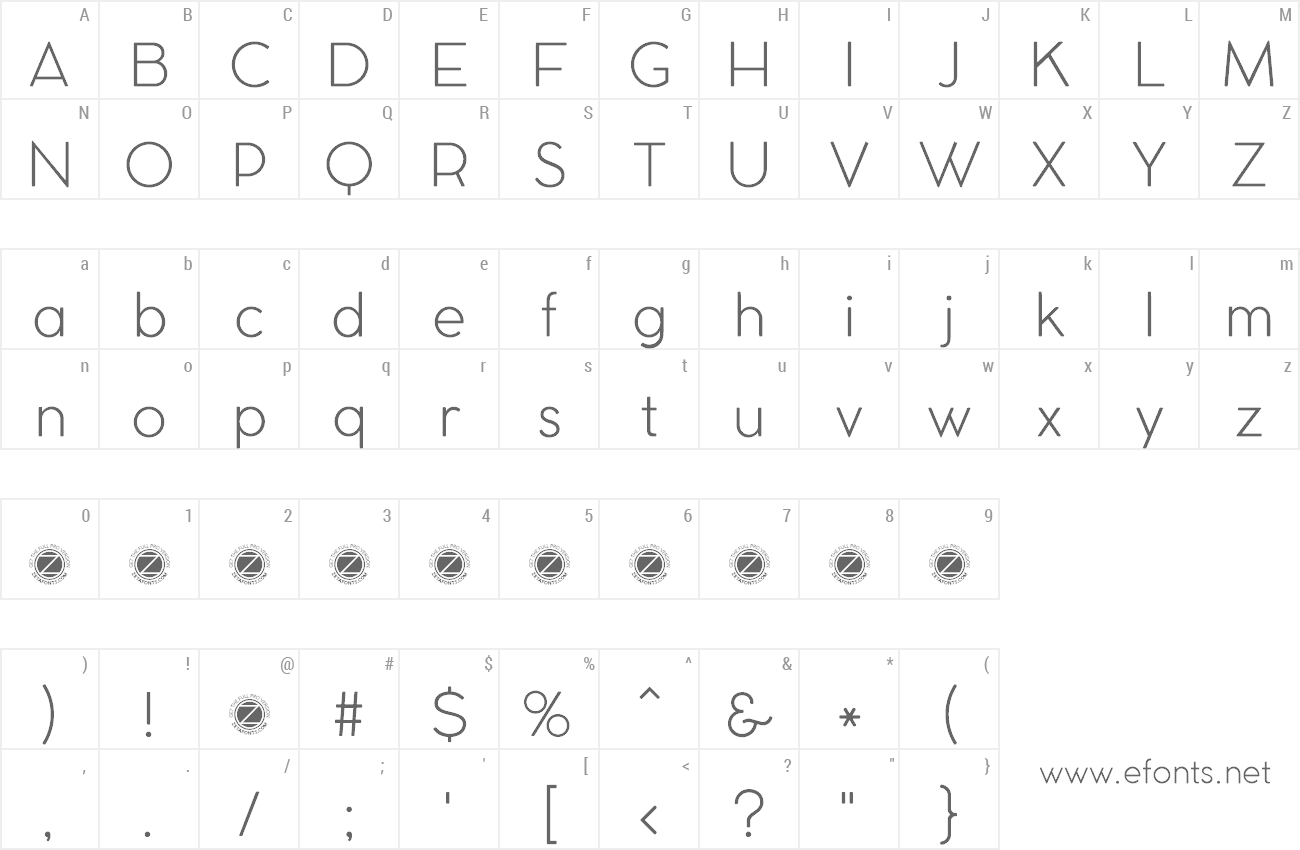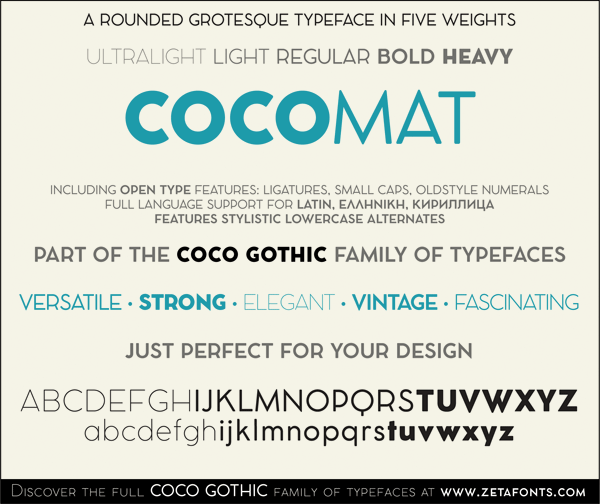
COCOMAT is a typeface variant from the COCO GOTHIC family of sans serif geometric typefaces. It’s inspired by the style of the twenties and the visions of italian futurists like Fortunato Depero, Giacomo Balla and Antonio Sant’Elia. In this package are two weights of the five weights avalaible. This font is TOTALLY FREE for NONCOMMERCIAL USES. For commercial uses you must get a license at: http://www.zetafonts.com/cocomat Cocomat features an extended character set with open type support for small caps, ligatures, European languages, Greek and Cyrillic alphabets and three additional weights: download them for free on http://www.zetafonts.com Cocomat is part of the Coco Gothic superfamily: http://www.zetafonts.com/coco-gothic Have a question?: info@zetafonts.com |